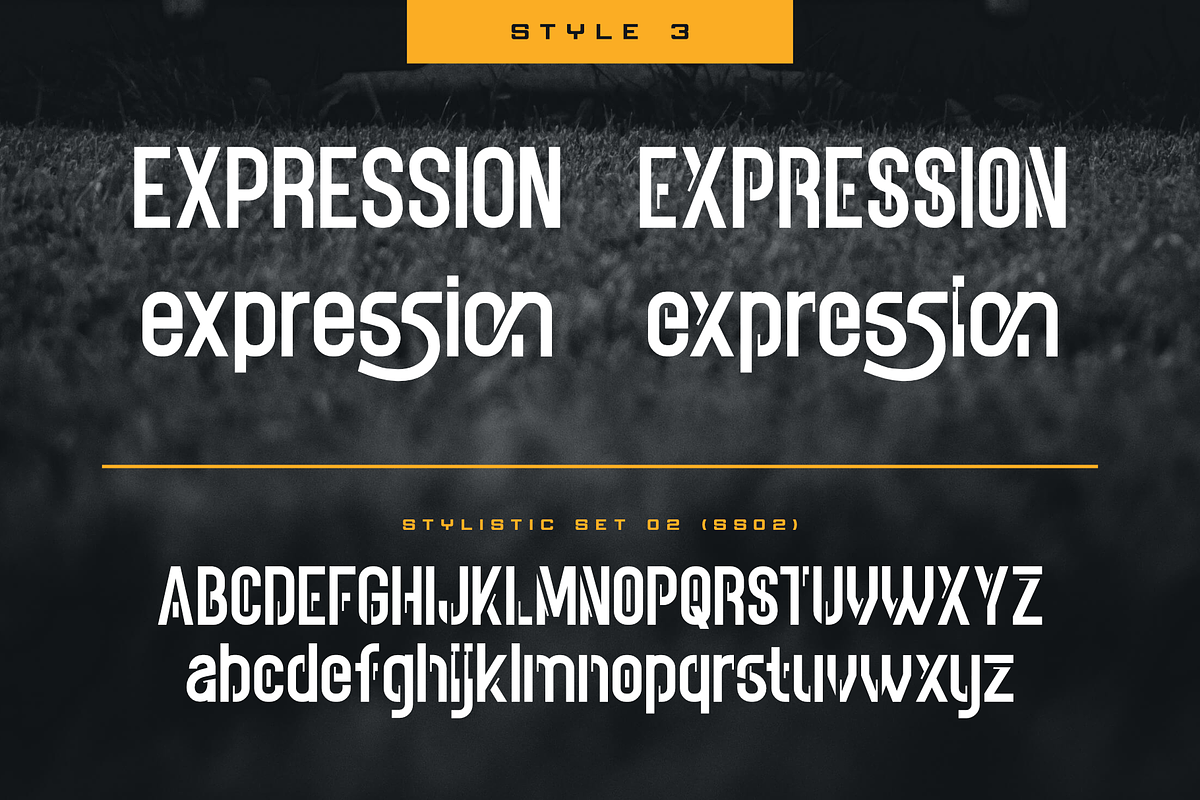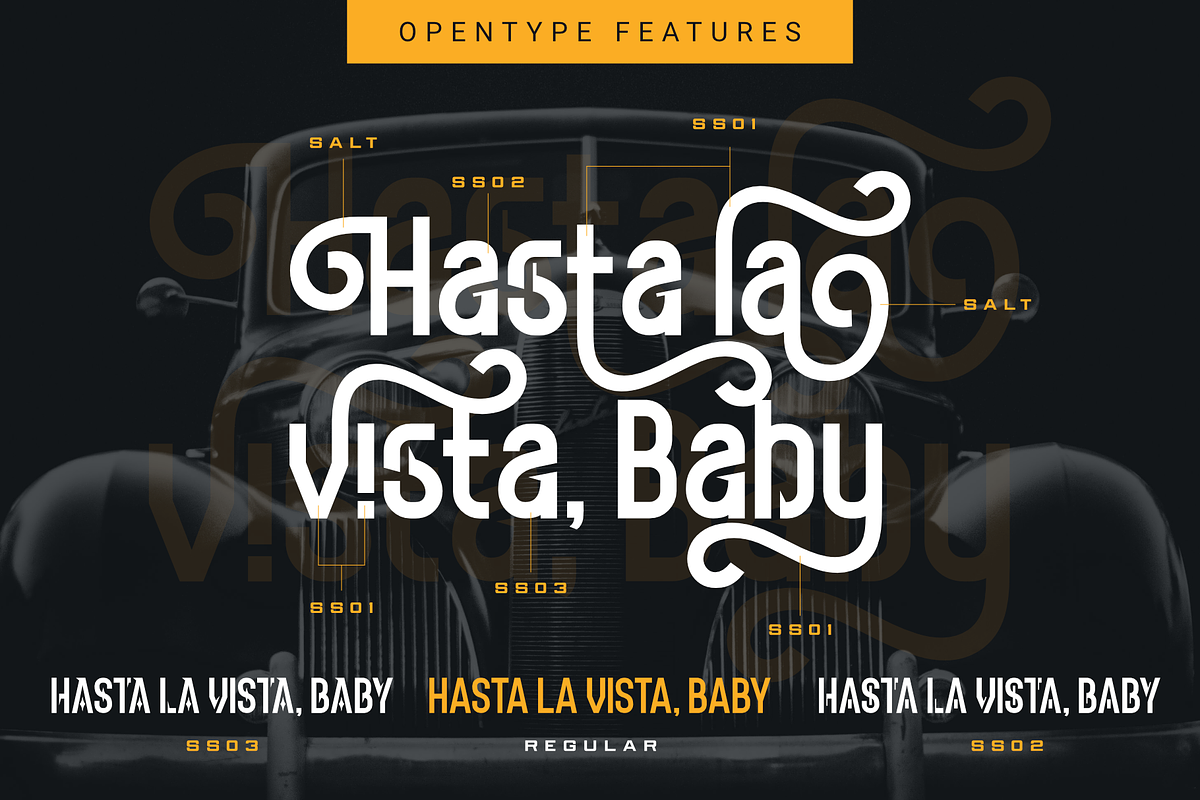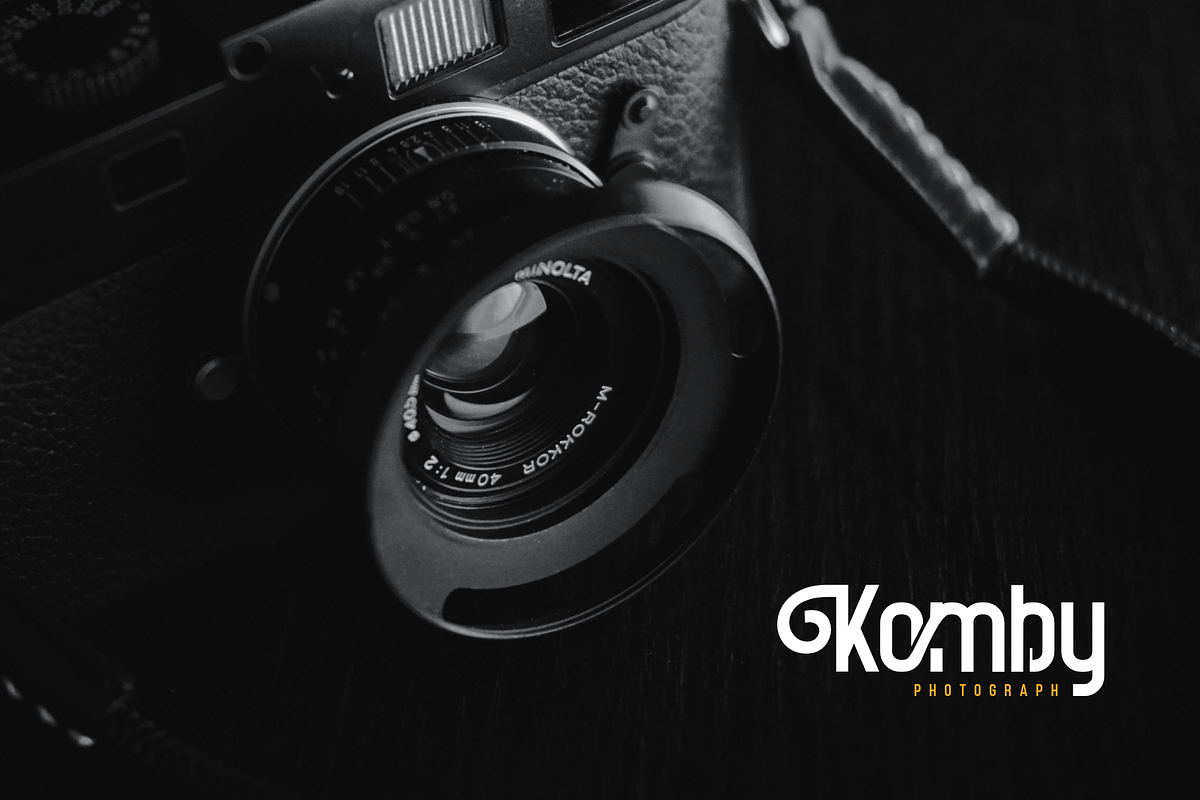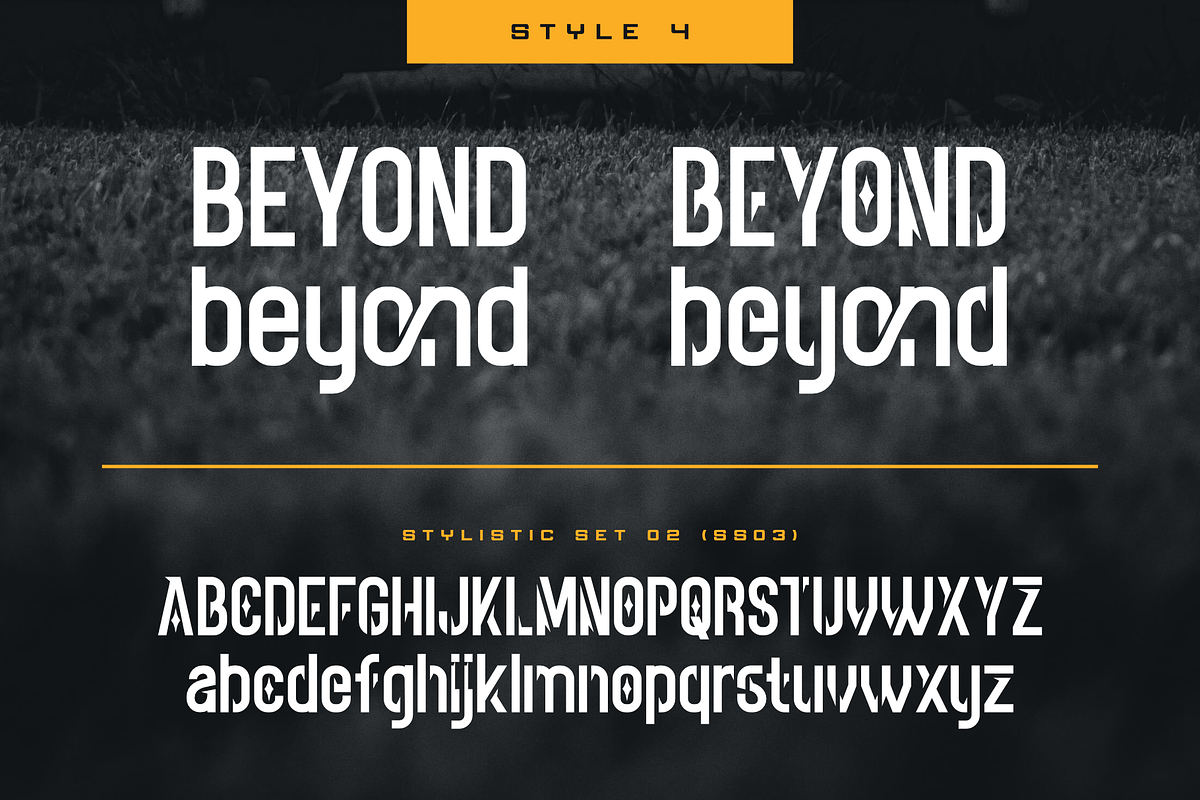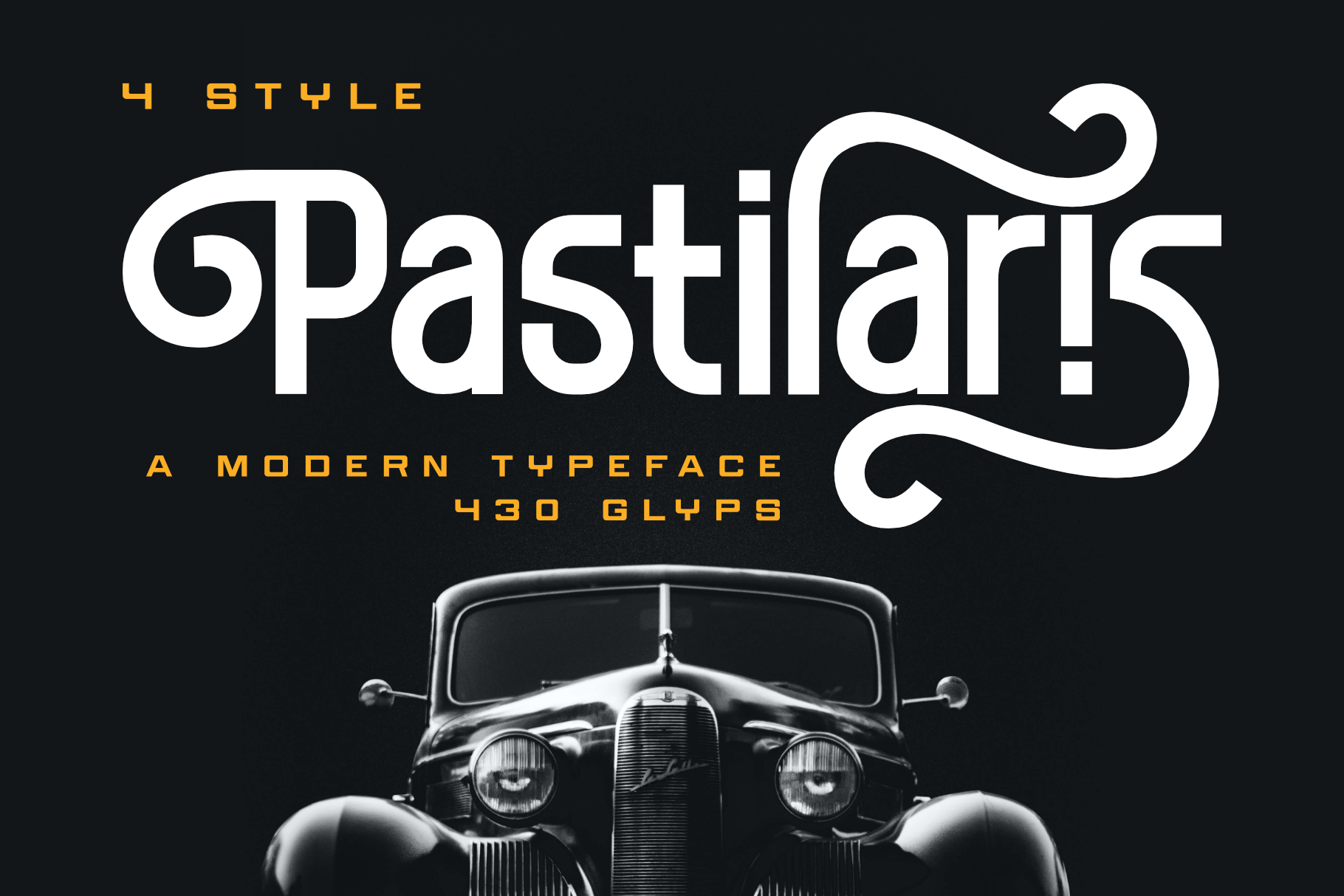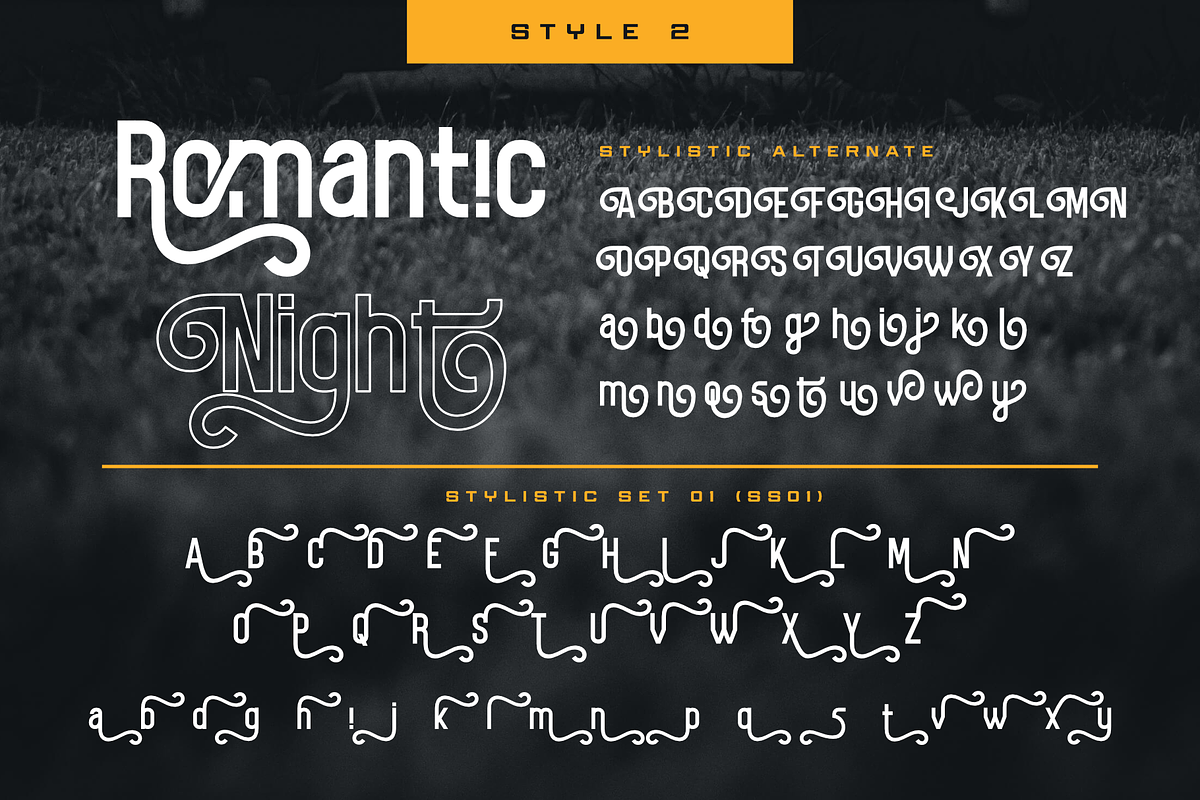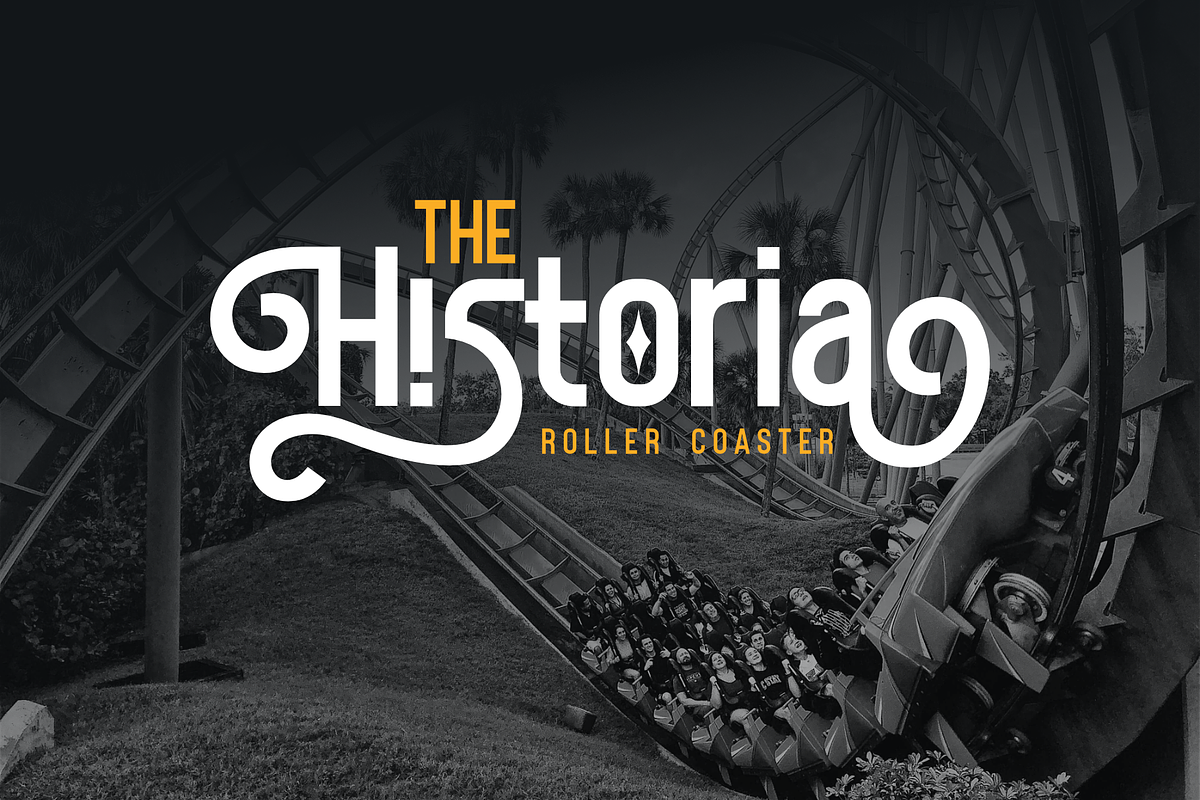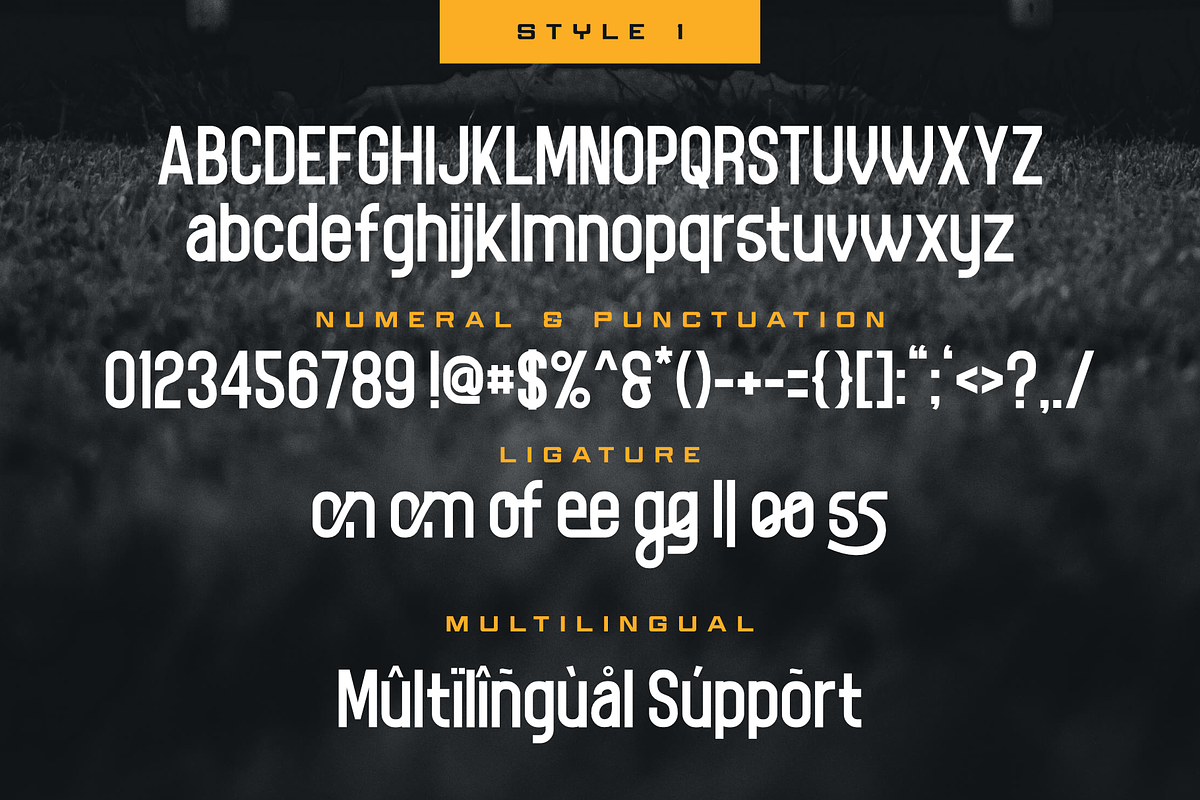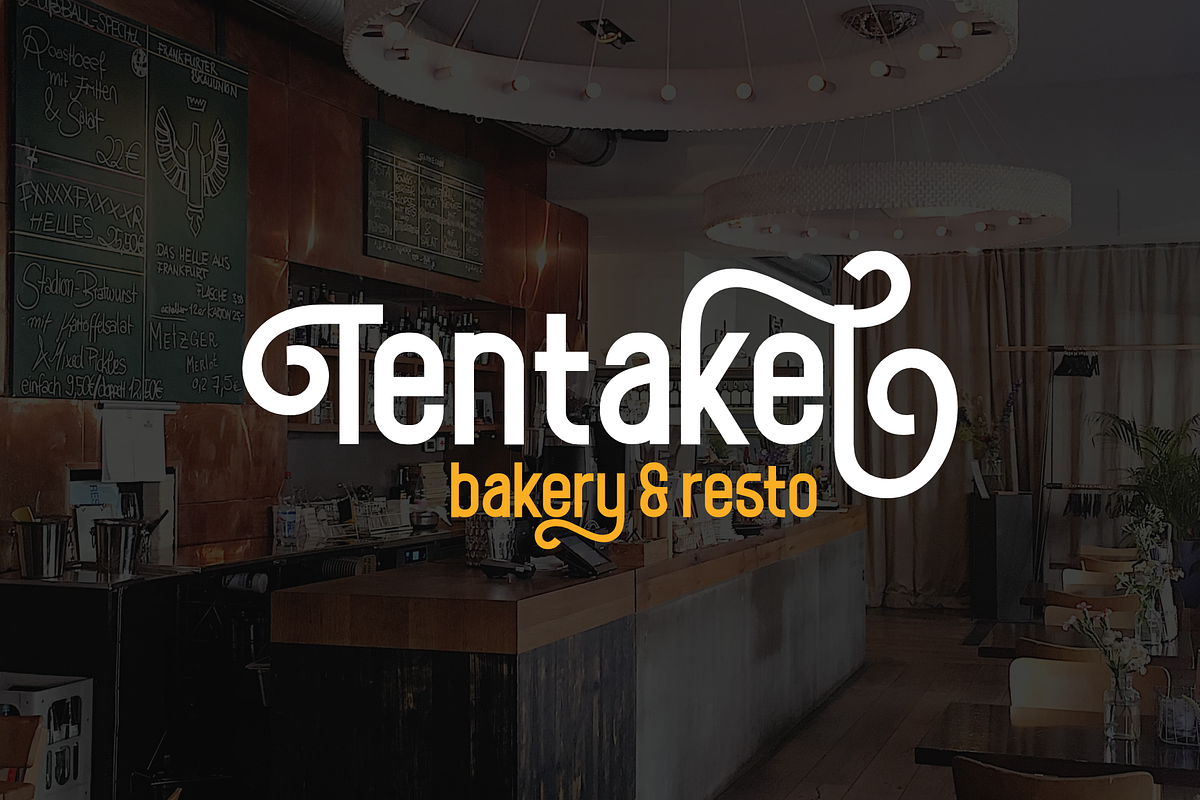
Pastilaris - a Modern Typeface
Pastilaris - a Modern Typeface is an excellent font that has 4 styles. the font that will beautify your project is equipped with up to 430 glyphs which of course will have many choices and design variations.
Pastilaris is perfect for design, logos, social media, branding, advertising, product design, magazine titles, product packaging, headers, posters, merchandise, and other designs.
- 4 Style Typeface
- Style Alternate
- Multilingual Accent